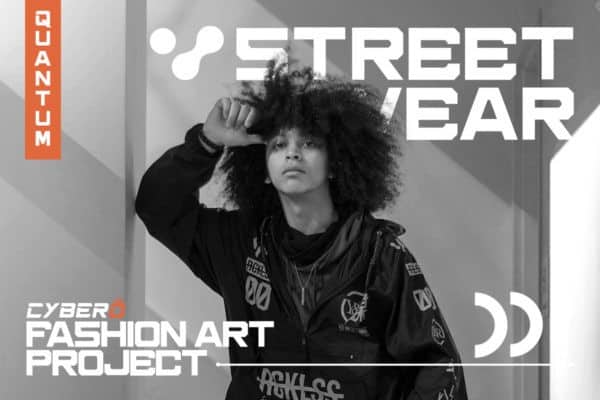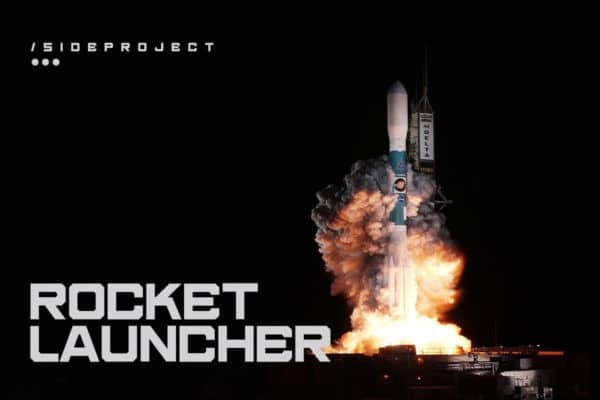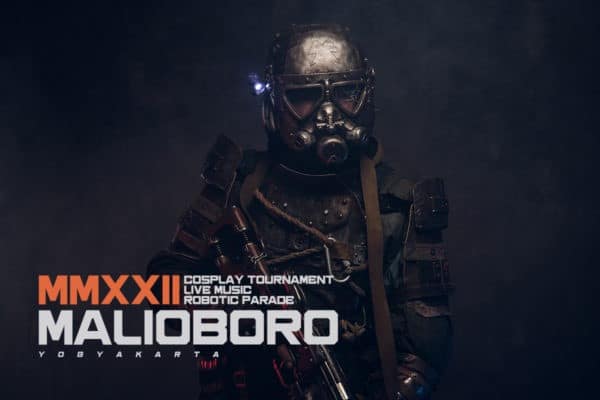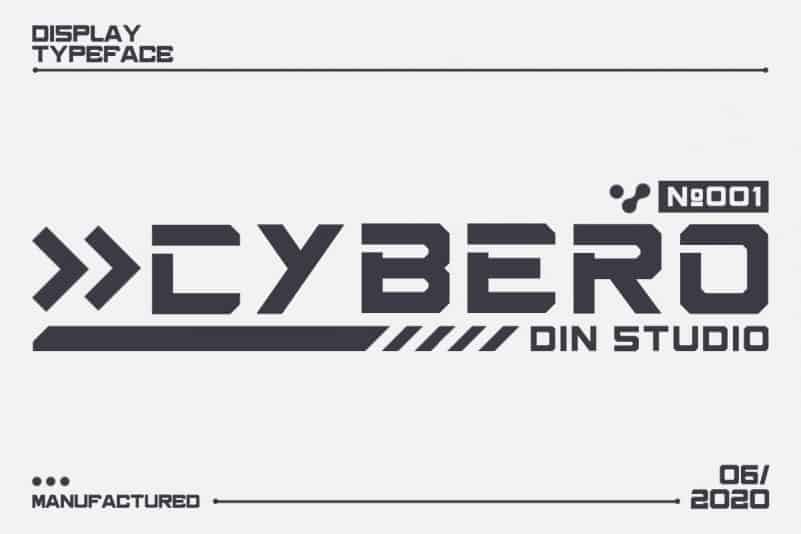
Cybero Display Font
Thanks for checking out Cybero Display Font. This font is a bold and authentic display Typeface, perfect for all purposes like branding, labeling, designing, and more. This typeface is designed and shared by Din Studio. It celebrates abstract shapes in all their eclectic beauty. This font will look truly outstanding in a wide range of contexts.